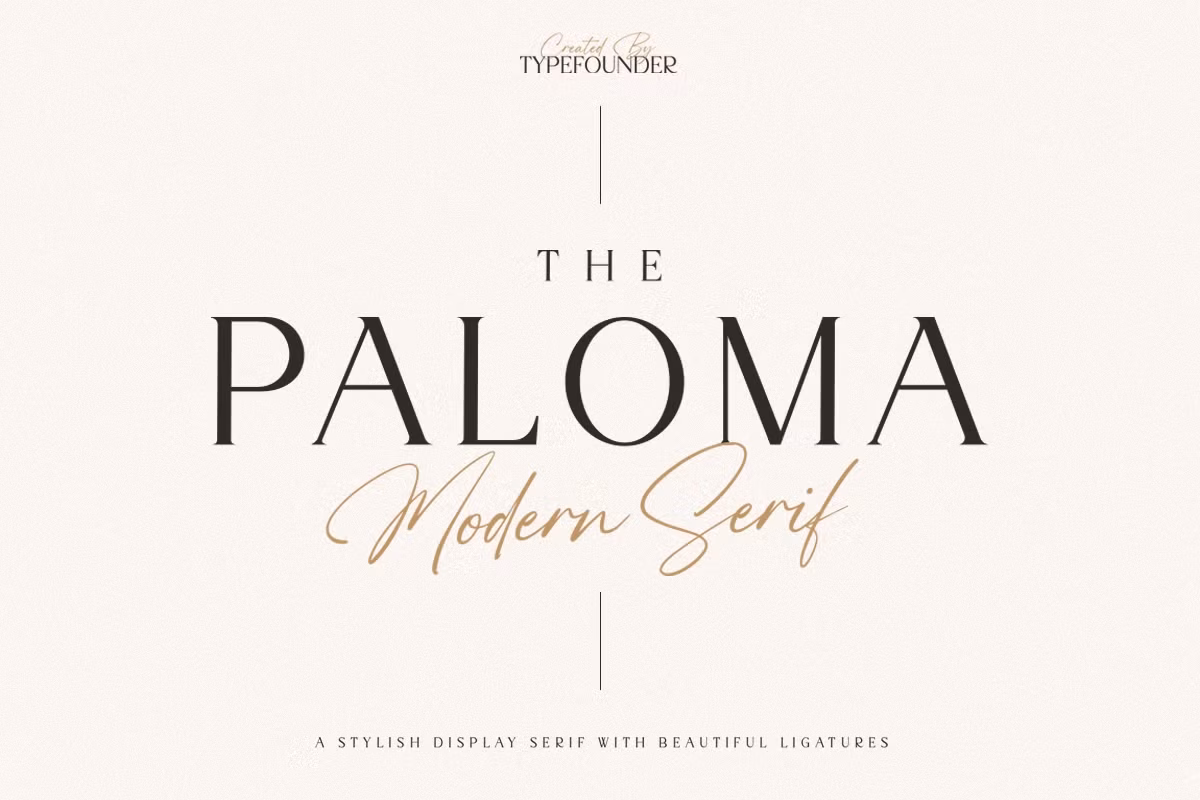
The Paloma – Modern Serif Font Free Download is a graceful and stylish typeface that blends timeless serif elegance with a clean, contemporary twist. Please note: you must purchase this font for commercial use, but you can test it through a free download. With high-contrast strokes, smooth curves, and a refined silhouette, The Paloma is perfect for luxury branding, wedding invitations, fashion magazines, editorial layouts, and minimalist packaging.
This font radiates sophistication and versatility—ideal for designers looking to elevate their work with a modern-classic aesthetic. Whether you're creating a high-end logo or designing polished web content, The Paloma – Modern Serif Font Free Download offers beauty, clarity, and impact in every letter. Fully compatible with Adobe Illustrator, Photoshop, Canva, and more. Download it today for personal use and bring timeless elegance to your next design with The Paloma.